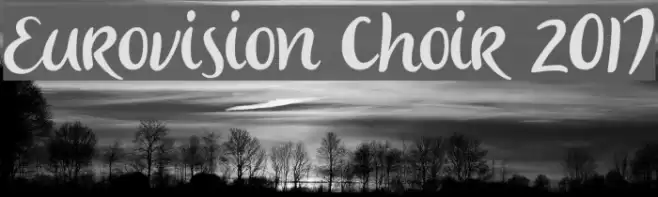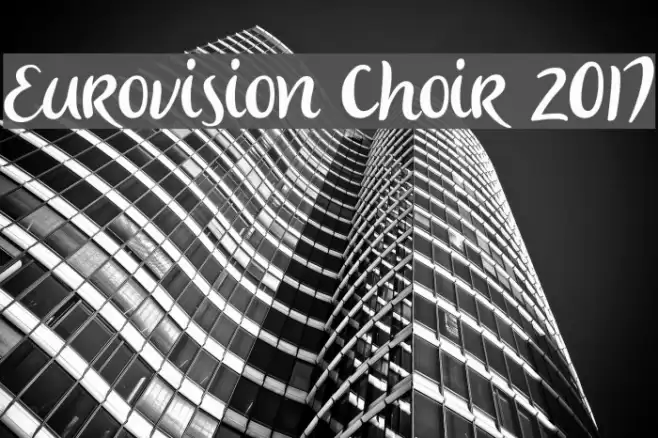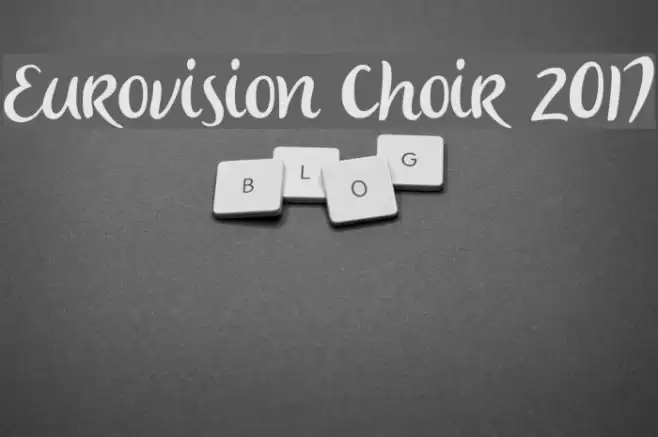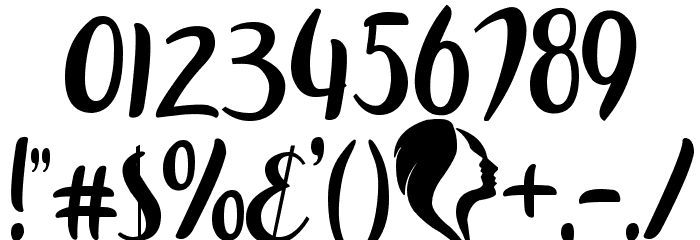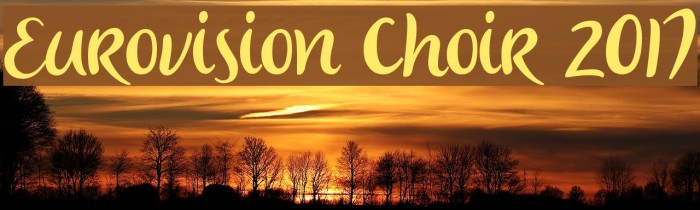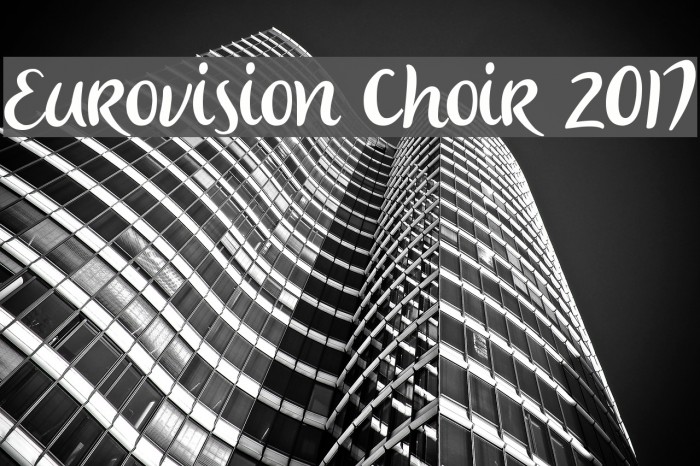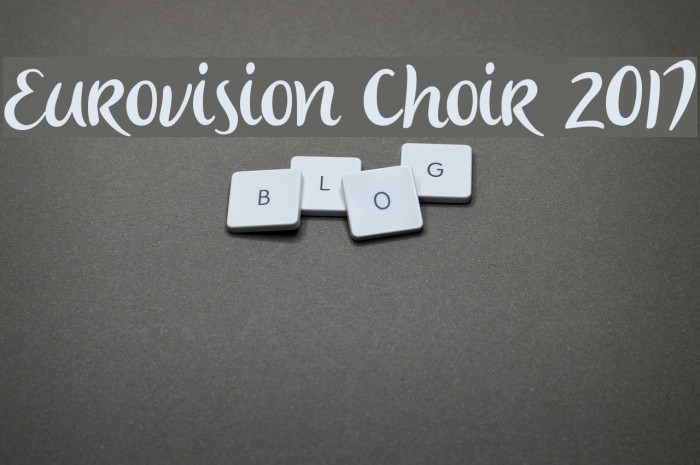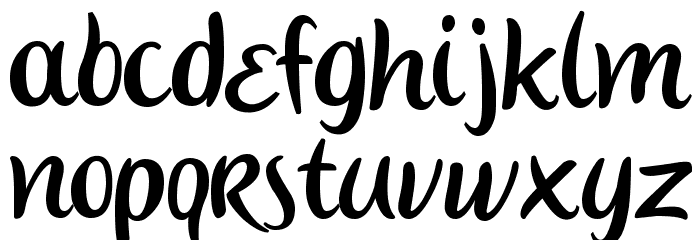
Eurovision Choir 2017 Font
Eurovision Choir 2017 Description
This font features a lively and expressive handwritten style, characterized by its fluid and dynamic strokes. The uppercase letters are bold and slightly slanted, giving a sense of movement and energy. The lowercase letters maintain a consistent flow, with smooth curves and rounded edges that enhance its friendly and approachable appearance. The numerals are distinct and easy to read, complementing the overall playful aesthetic. Special characters are creatively designed, adding a unique touch to the font's personality. This font's organic and informal style makes it suitable for projects that require a personal and engaging touch.
A lively and expressive handwritten font with fluid, dynamic strokes from Uncategorized fonts.